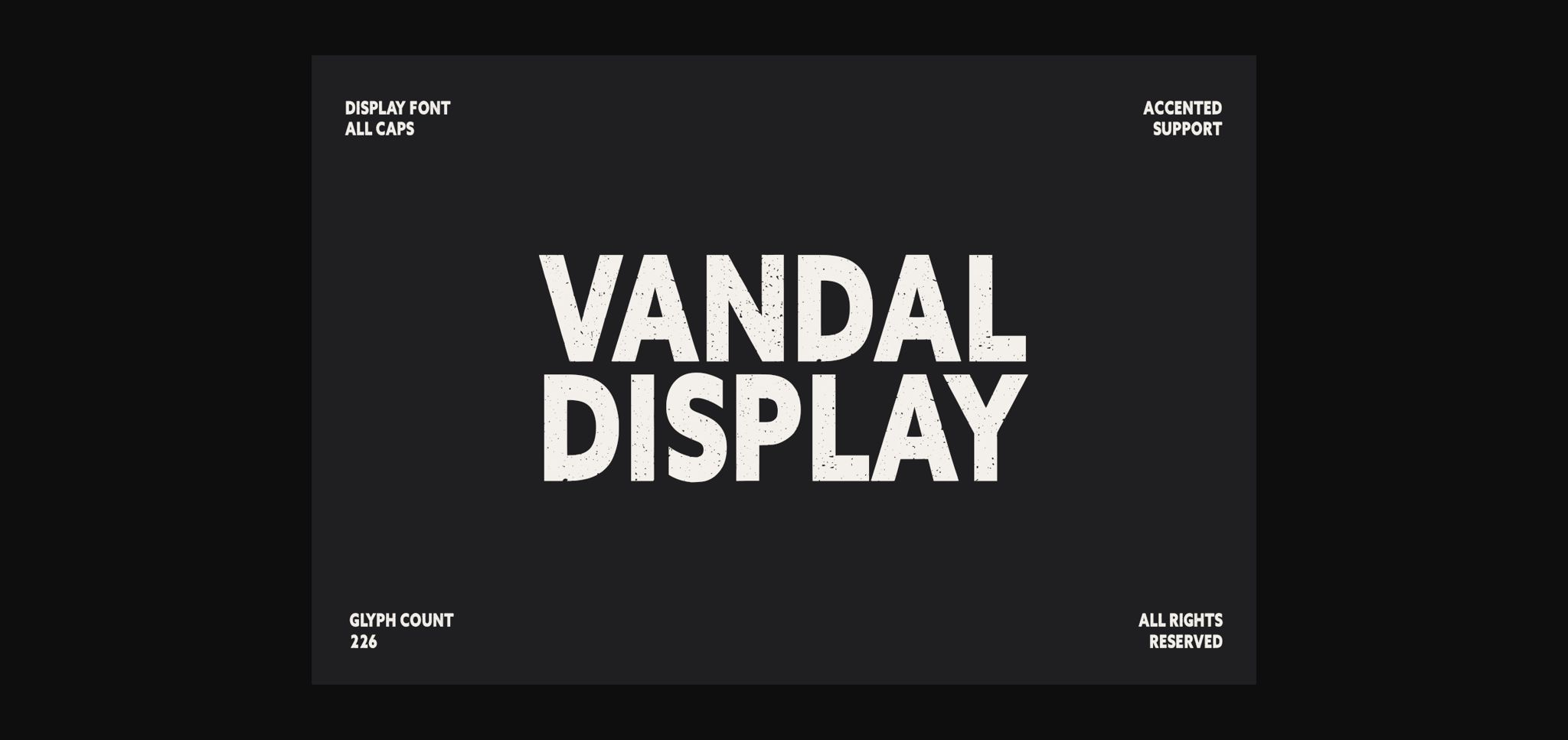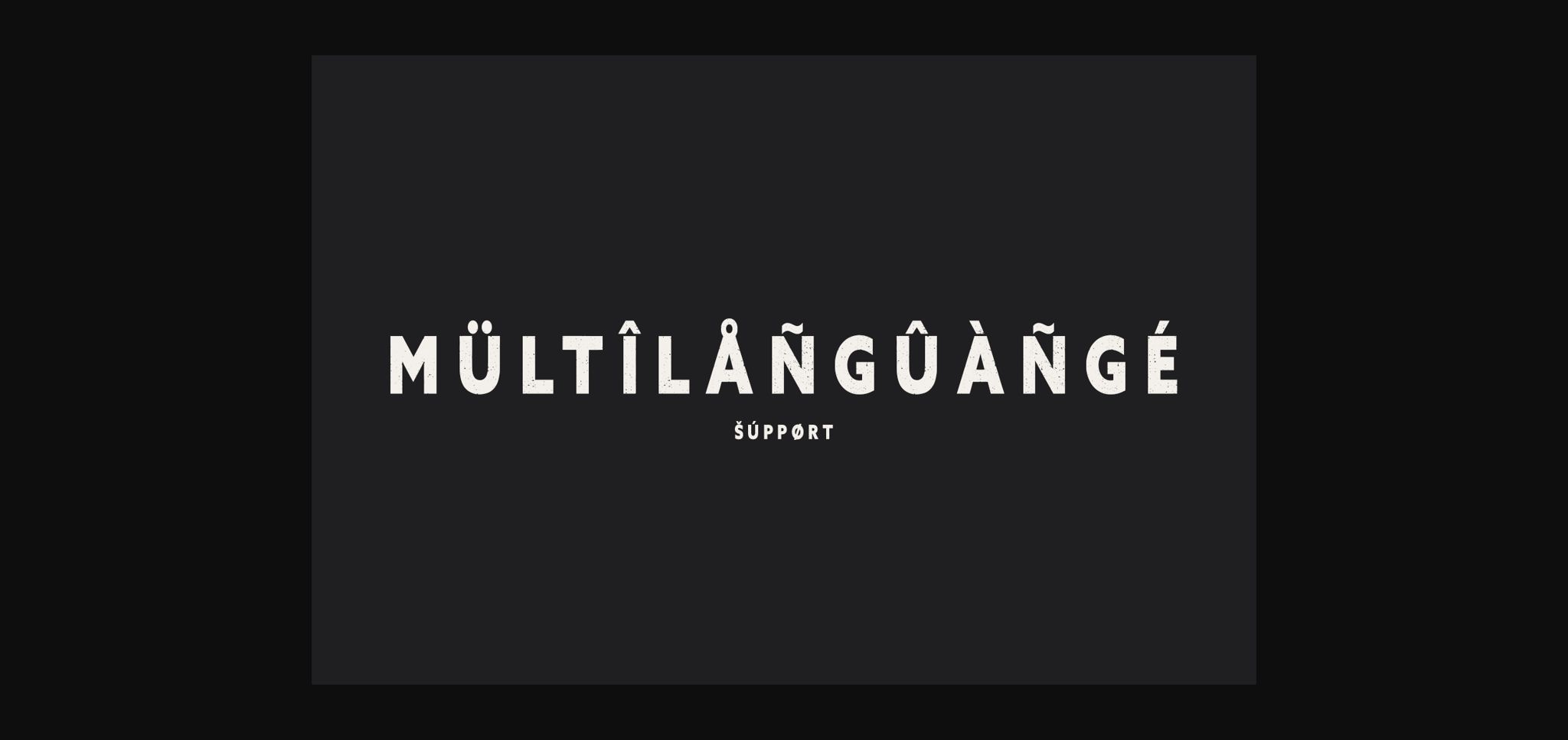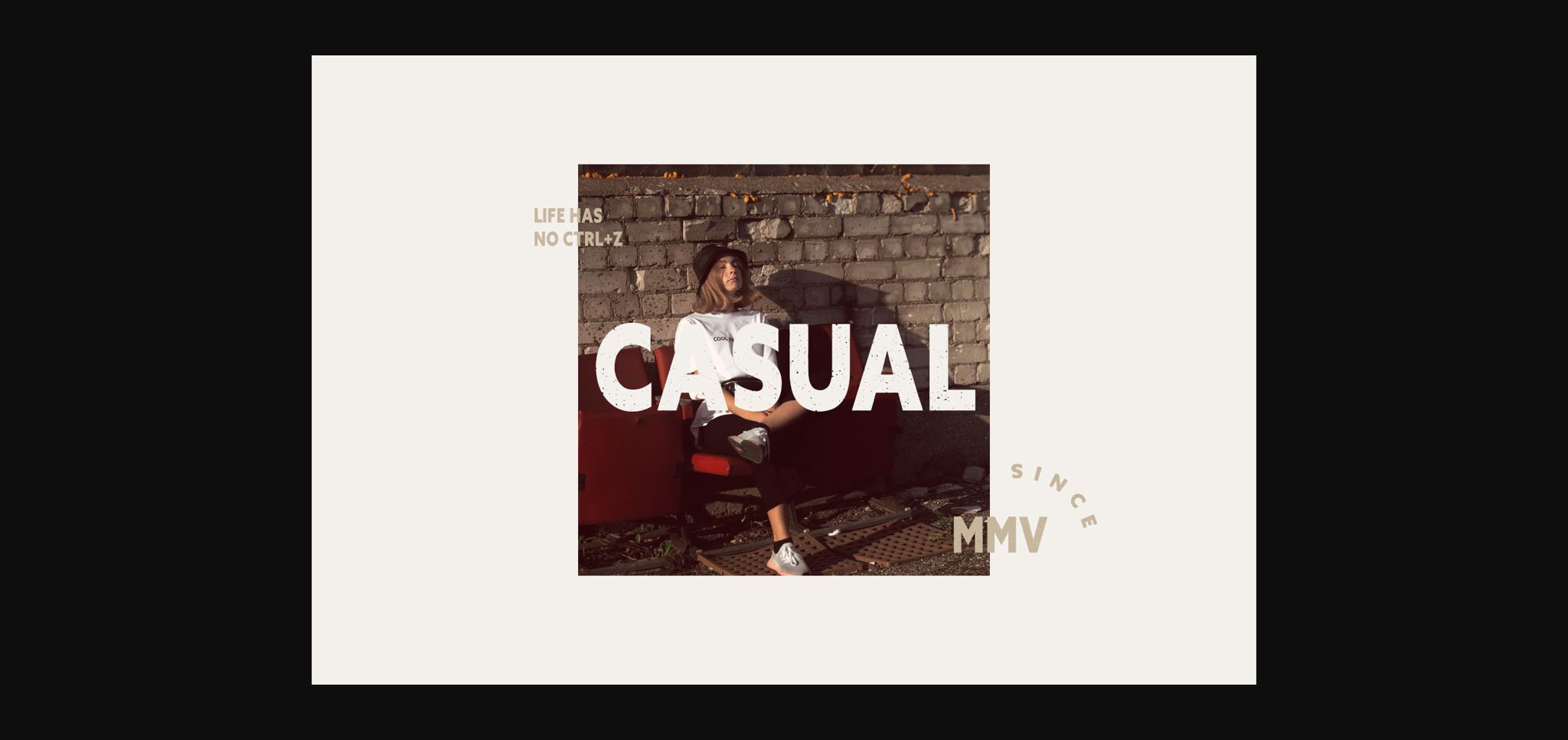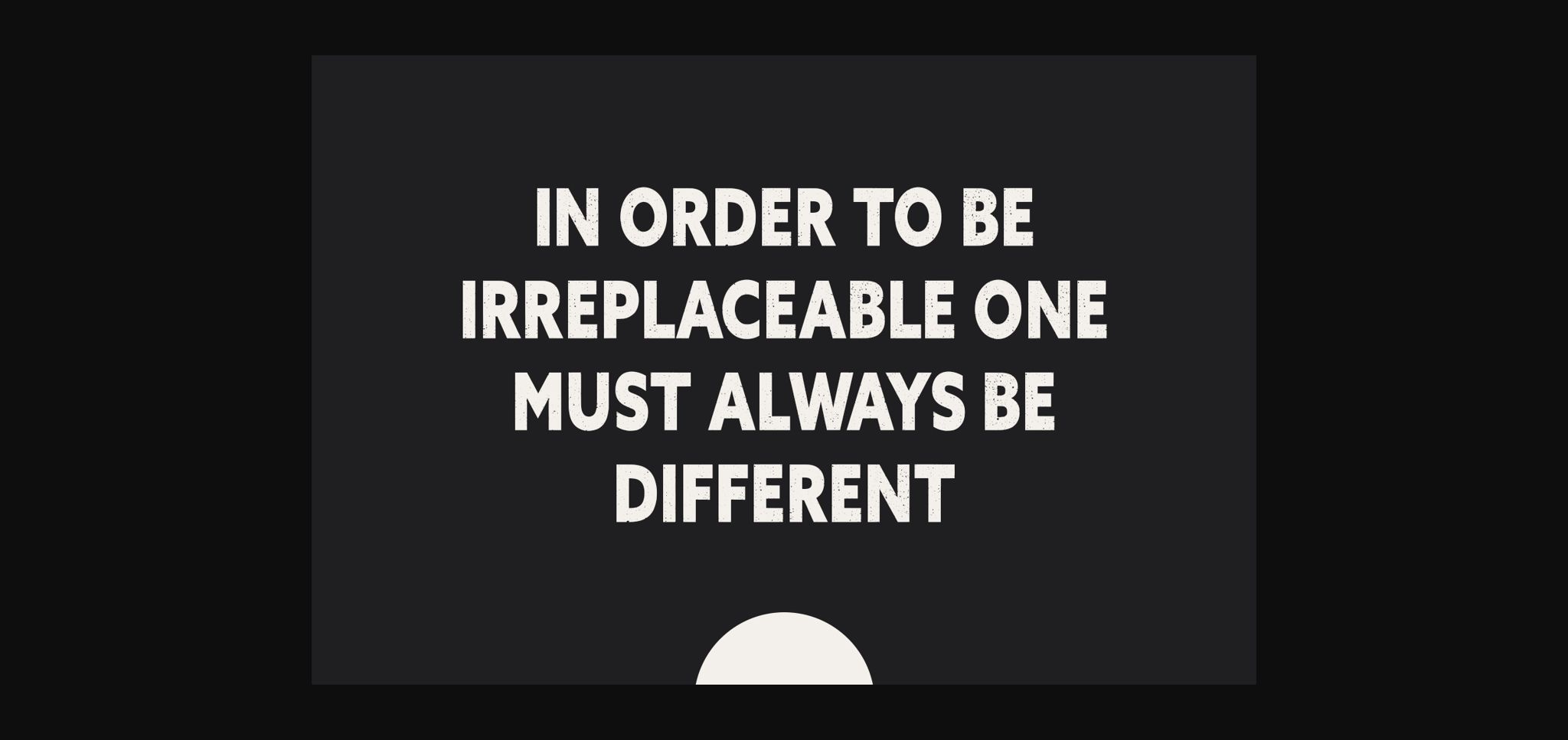
About Vandal Font
Vandal is a rough sans serif font. It has a strong and unique look and it is perfectly suited for branding, logos, magazines, films, websites, headlines, titles and more.